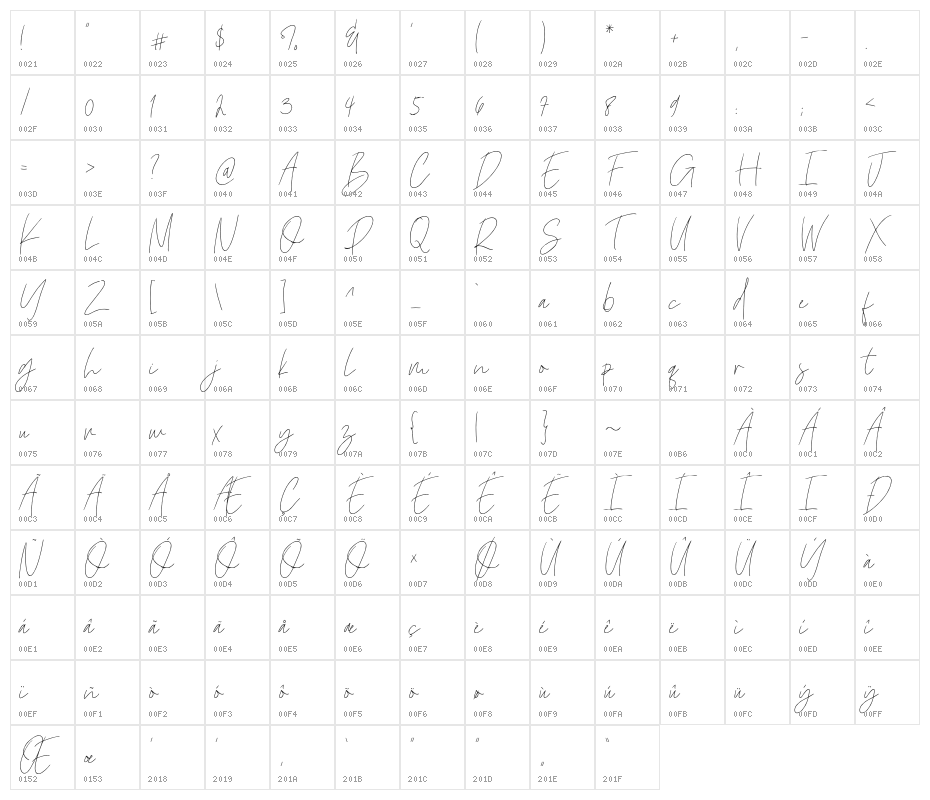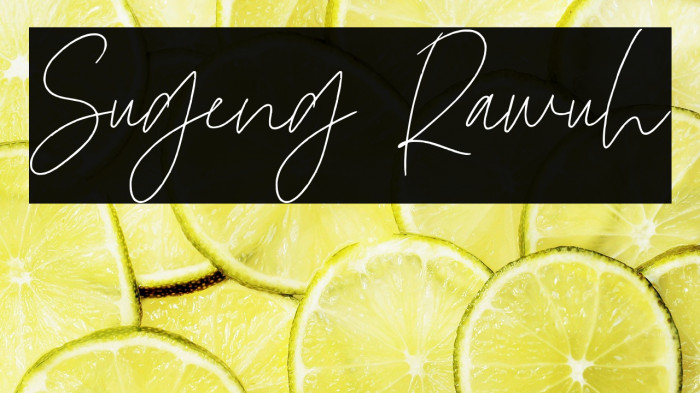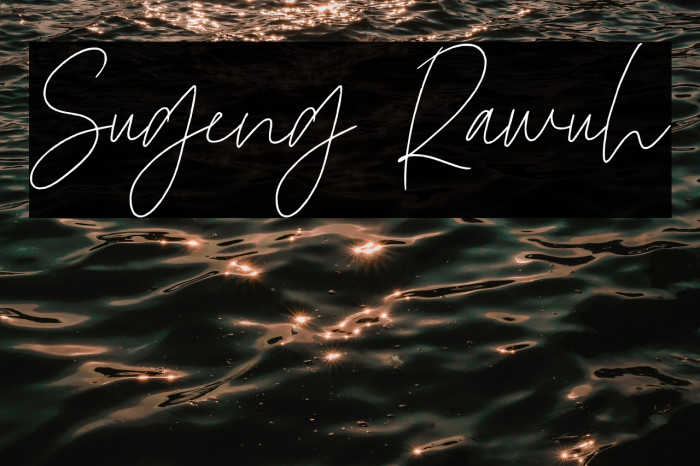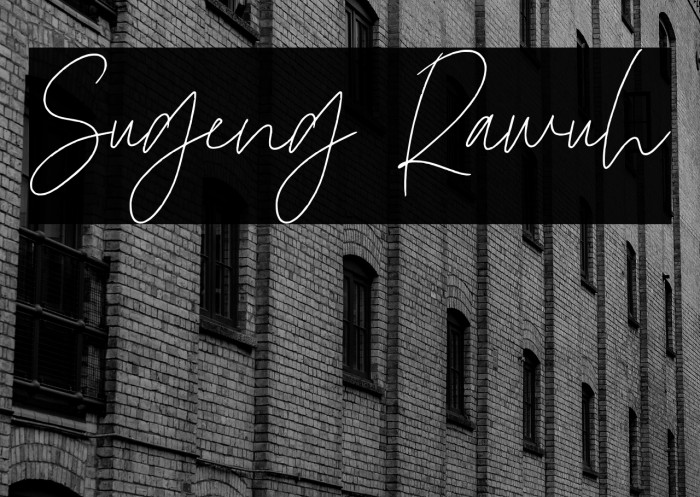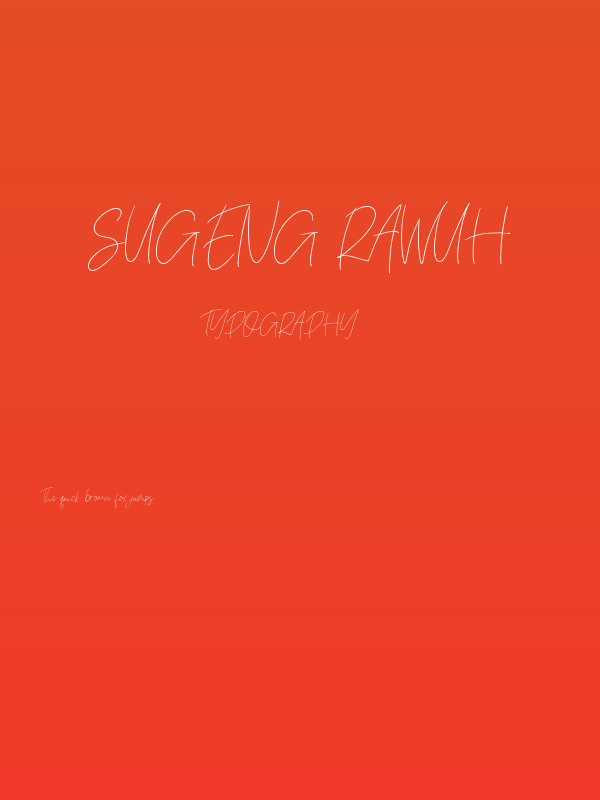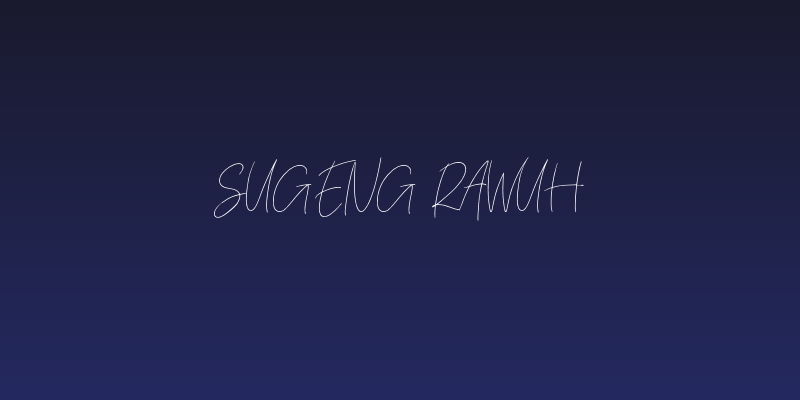
Sugeng Rawuh Font
Sugeng Rawuh Description
This font exudes a casual, handwritten style with a flowing, cursive appearance. The letters are connected in a fluid manner, giving it an organic and personal touch. The strokes are thin and consistent, creating a light and airy feel. This font captures the essence of a quick, yet elegant handwritten note, making it ideal for projects that require a personal or informal tone. The characters are slightly slanted, adding to the dynamic and lively nature of the font. The overall design is clean and legible, despite its cursive style, ensuring readability while maintaining its unique charm.
| Use Case | Logos, Invitations, Personal notes |
| Proposed Projects | Ideal for personal letters, invitations, greeting cards, and branding that requires a personal touch. |